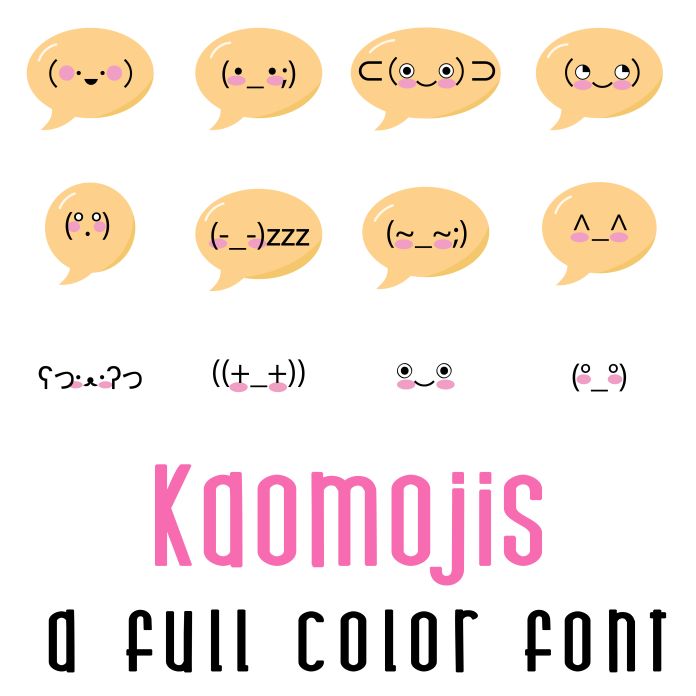
This fun full color font features 52 fun kaomojis. Perfect for cards, crafts, gifts, decor, scrapbook pages, planner stickers, and more! Glyphs are A-Z in bubbles and a-z without bubbles.